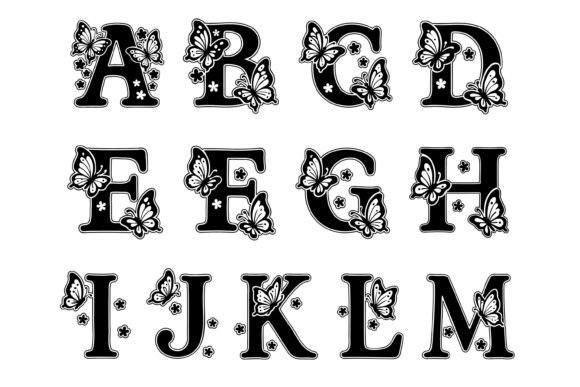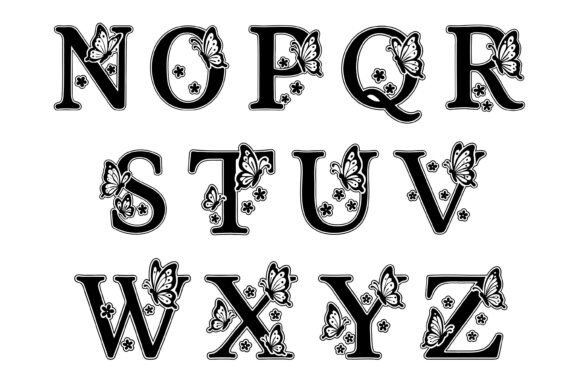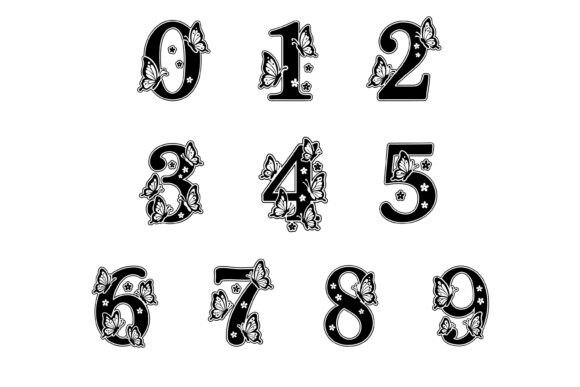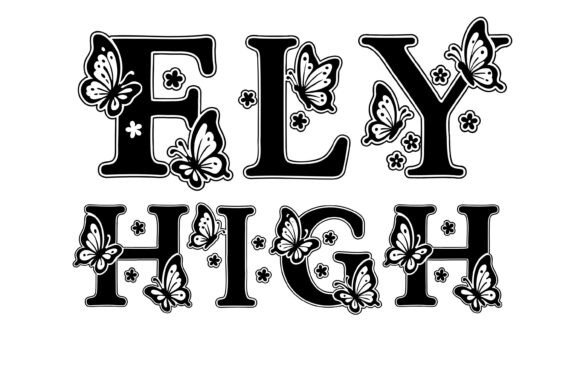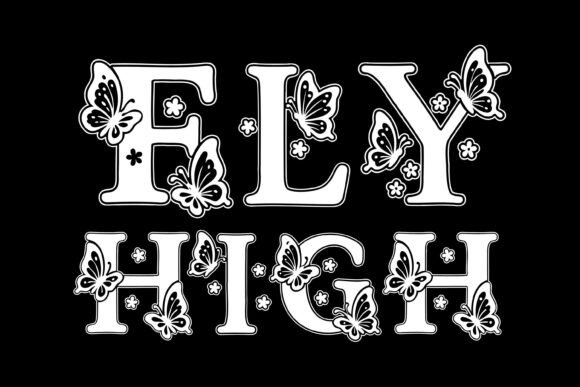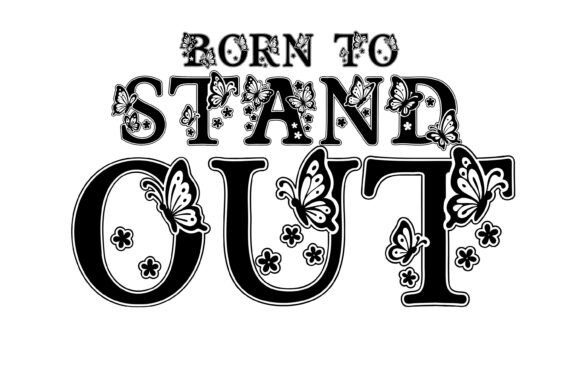
Introduction to Monarch Magic Font Font
Fonts play a crucial role in design, and the Monarch Magic Font font is a typeface that brings both character and versatility to any project. Whether you’re working on a branding project, a website, or a print design, the Monarch Magic Font font offers a unique style that can elevate your work.
Monarch Magic is a whimsical display font featuring beautifully decorated uppercase letters filled with butterflies and floral elements.
Itβs perfect for childrenβs book titles, magical invitations, or any creative project that needs a fairy-tale touch .
Key Features of Monarch Magic Font Font
Why Choose Monarch Magic Font Font?
The Monarch Magic Font font is more than just a typeface β it’s a design tool that helps you communicate your message with style and clarity. Its unique character set and versatile design make it suitable for a wide range of applications, from elegant invitations to bold headlines.
With its carefully crafted letterforms and balanced proportions, the Monarch Magic Font font ensures readability and visual appeal across all mediums.
What makes Monarch Magic Font font special?
The Monarch Magic Font font stands out with its unique design, exceptional readability, and versatility across various design applications.